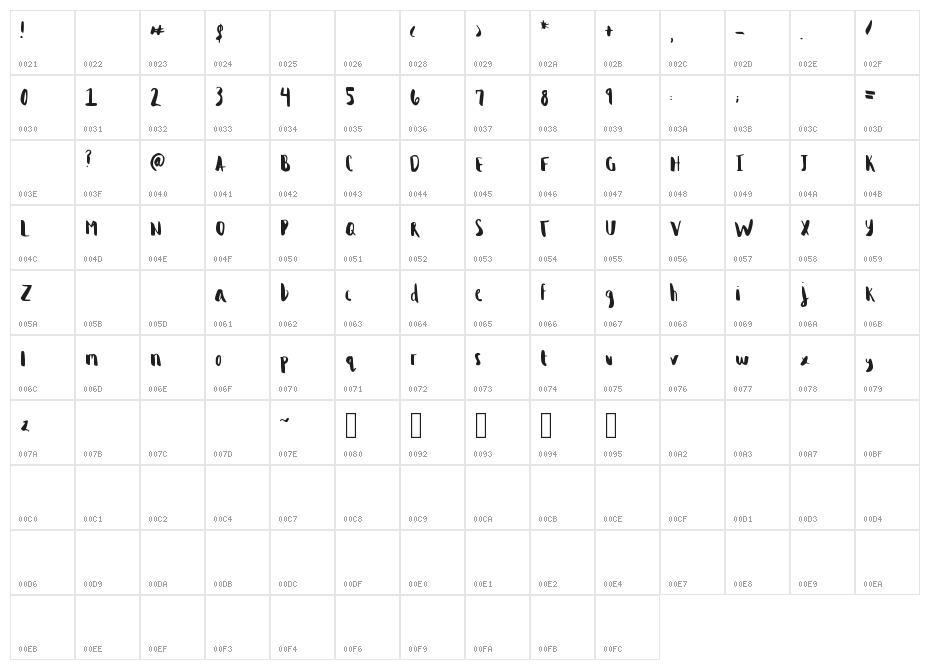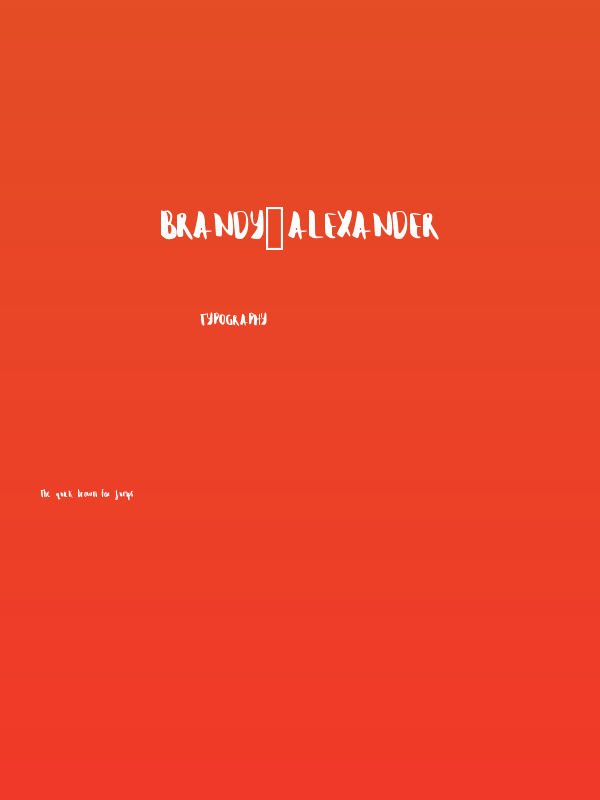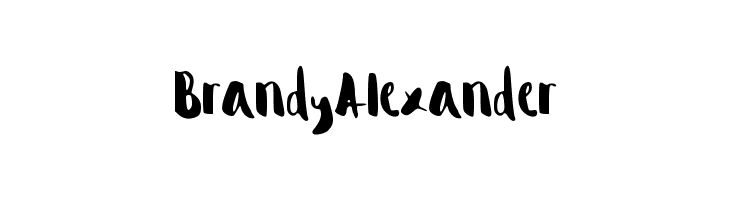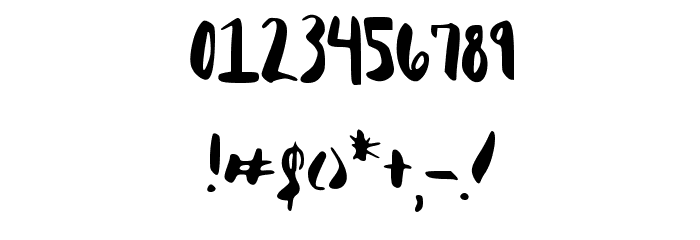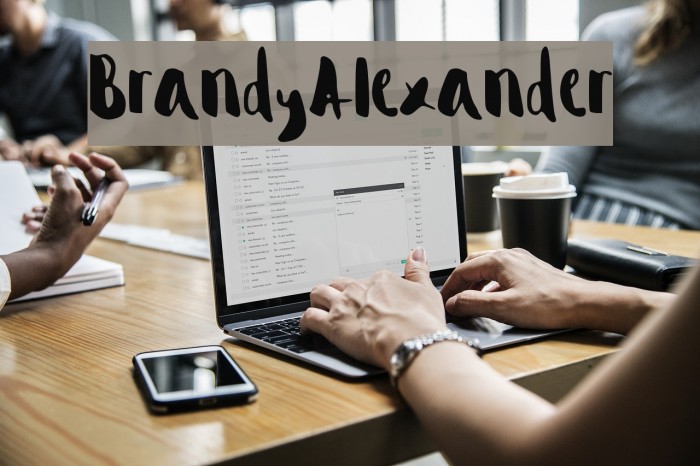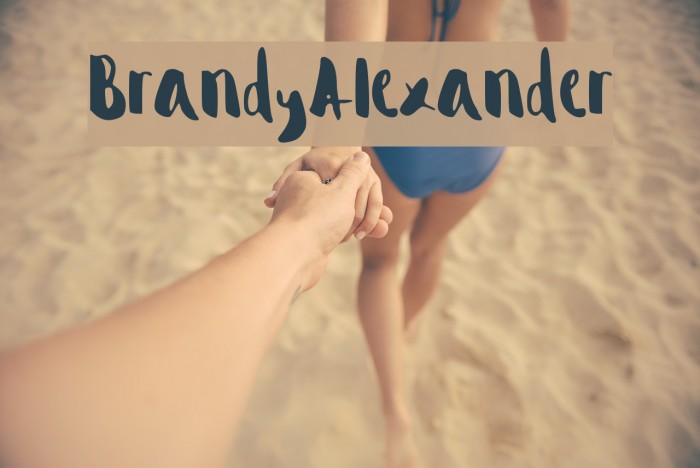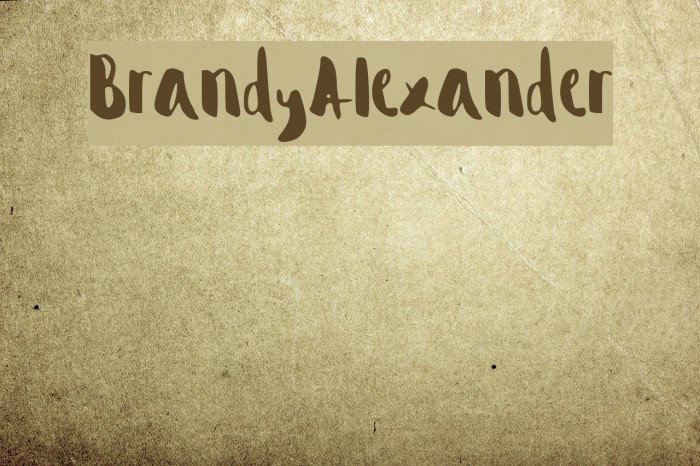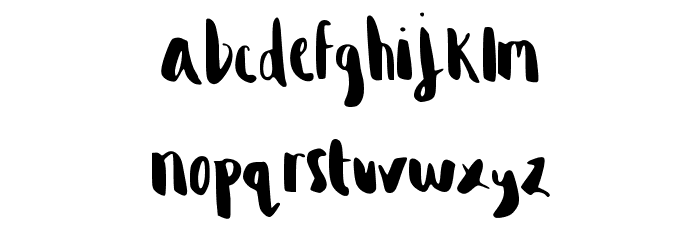
Brandy_Alexander Font
Brandy_Alexander Description
This font features a playful and casual handwritten style, characterized by its bold and uneven strokes that give it a lively and dynamic appearance. The letters have a slightly irregular baseline, adding to the informal and approachable feel. The uppercase letters are bold and prominent, while the lowercase letters maintain a consistent flow with a touch of whimsy. The numbers and special characters follow the same playful style, making the font versatile for various creative projects. The overall look is modern and artistic, suitable for designs that require a personal and friendly touch.
| Proposed Projects | Ideal for greeting cards, invitations, posters, and social media graphics. |